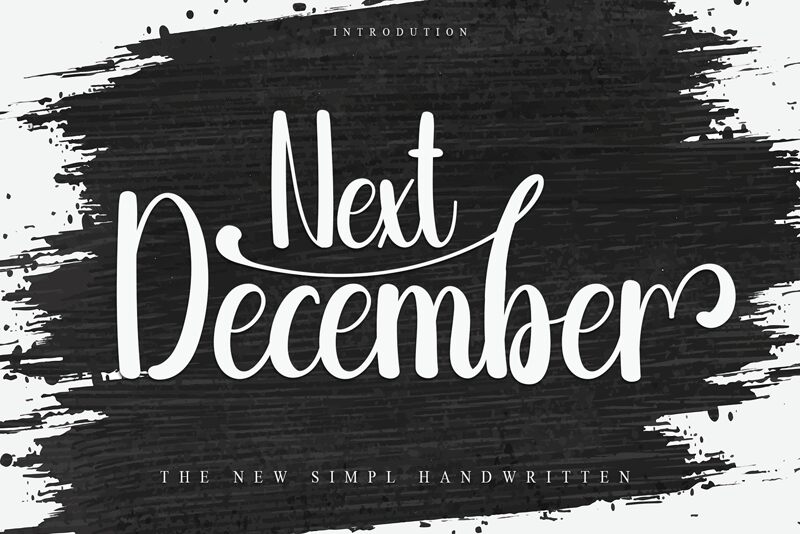
Next December font is a free font designed by creatype designer. The handwritten typeface combines elegant, engaging, and sophisticated expressions by linking artistic strokes together. Its refined style makes it a great professional font for projects that require a sleek and modern finish. The typeface allows designers to neatly present artistic ideas that will appeal to all audiences.
Modern projects and their appealing designs require a touch of something special, and this flowing font is its ideal addition. Use it for elegant branding designs for cosmetics or mobile applications, or for artistic logotypes and badges. You can also make the most out of its decorative characters in business and invitation cards or magazines and newspaper ads.
This font retains a classy calligraphic influence while feeling contemporary and fresh. Its versatility makes it suitable for a wide range of creative projects, from letterheads and titles to stationery.